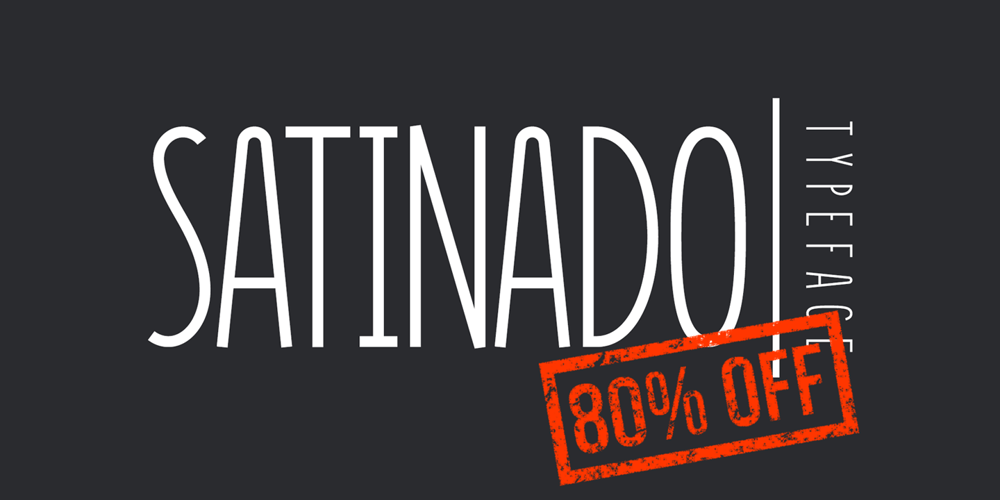
Satinado
Satinado font
Satinado Font Family was designed by Aleksei Fetisov and published by AlexBlogoodf. Satinado contains 1 styles and family package options. This typeface was designed specifically for your project. No matter what you create, this font is perfect for your design. A magnificent combination of lines and proportions creates a stunning and modern design. Created with passion to deliver the highest quality product.I hope that this font will help you in your work and you will create truly something unique. Latin and Cyrillic alphabets Multilingual Ligatures 555 glyphs